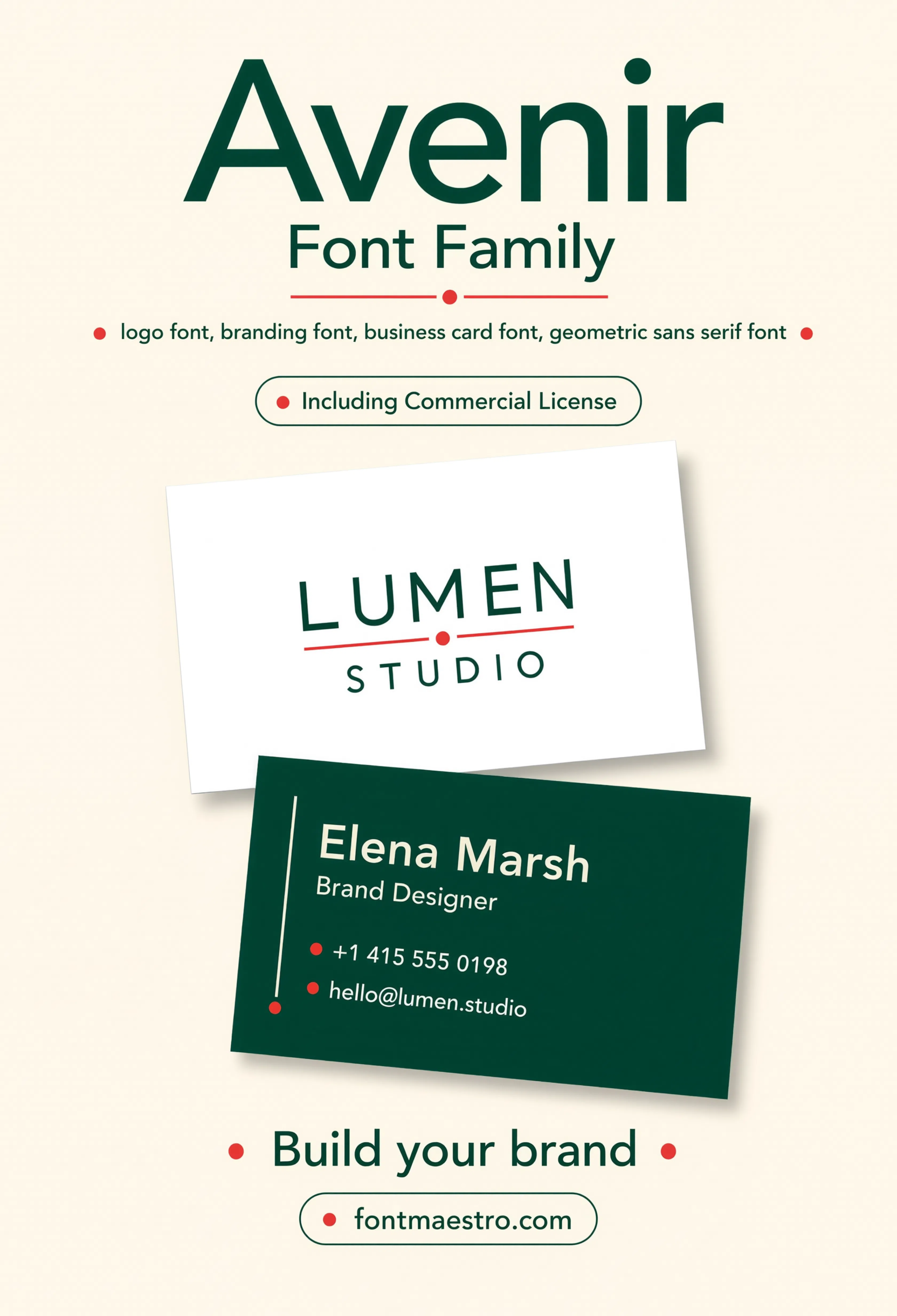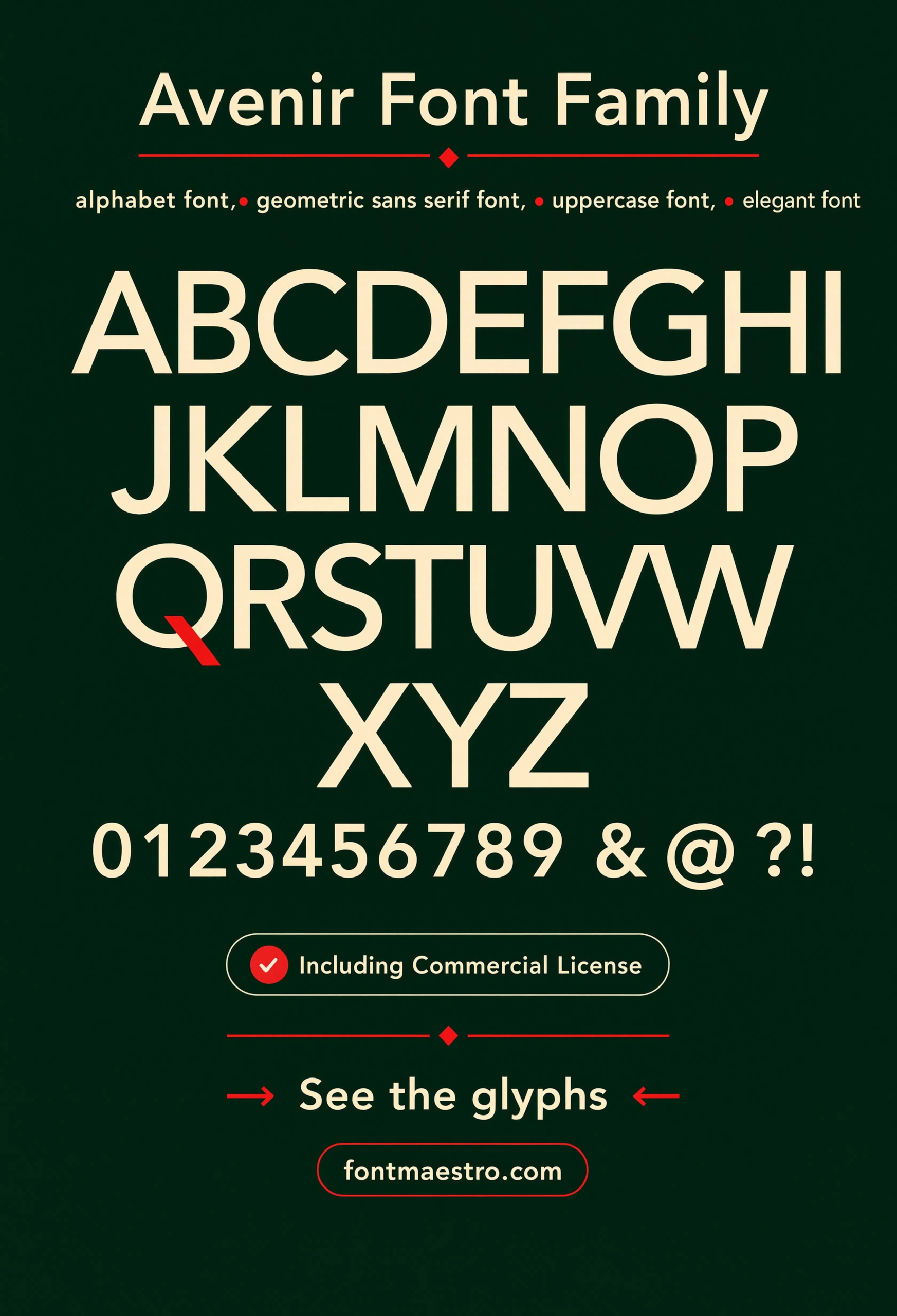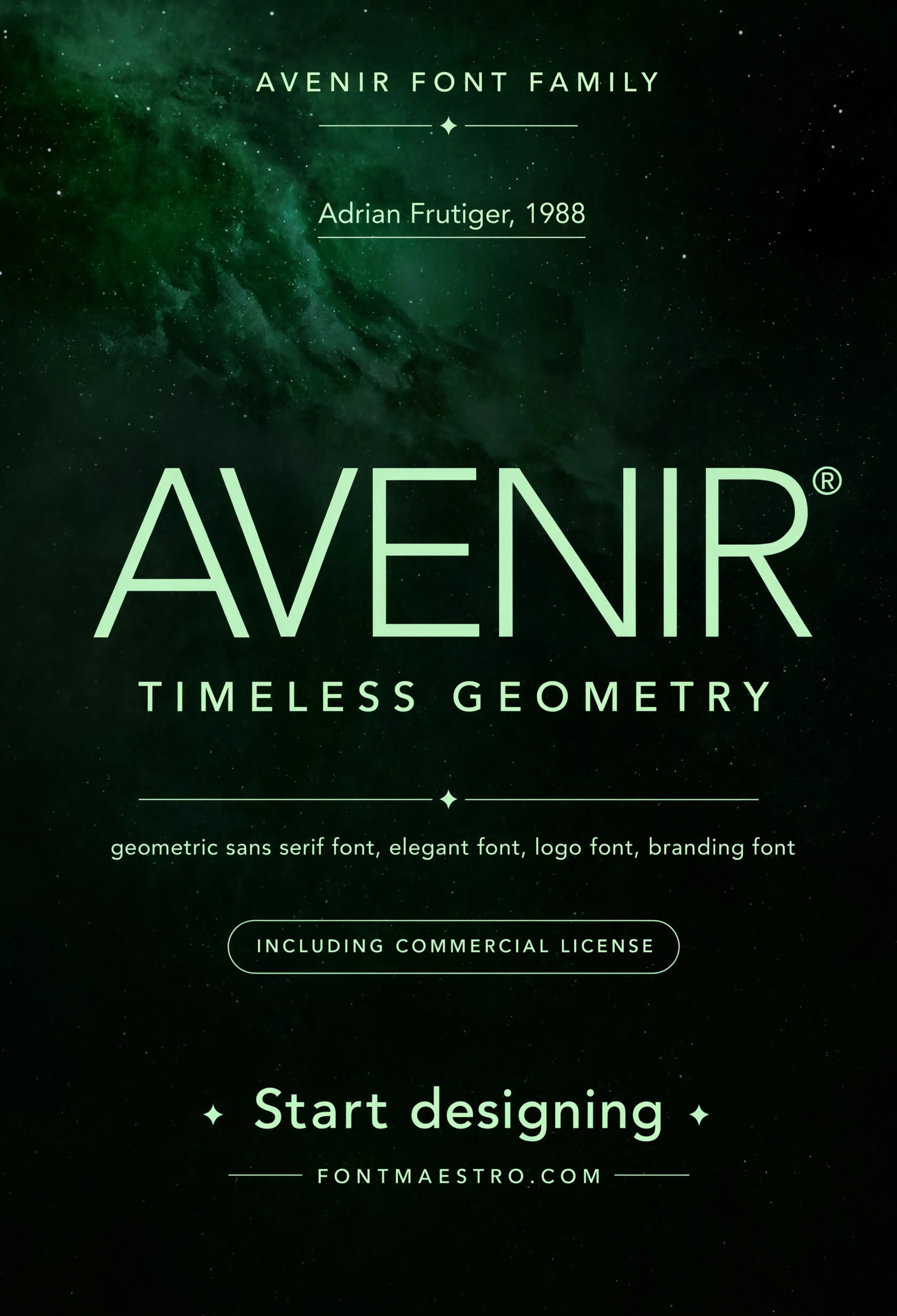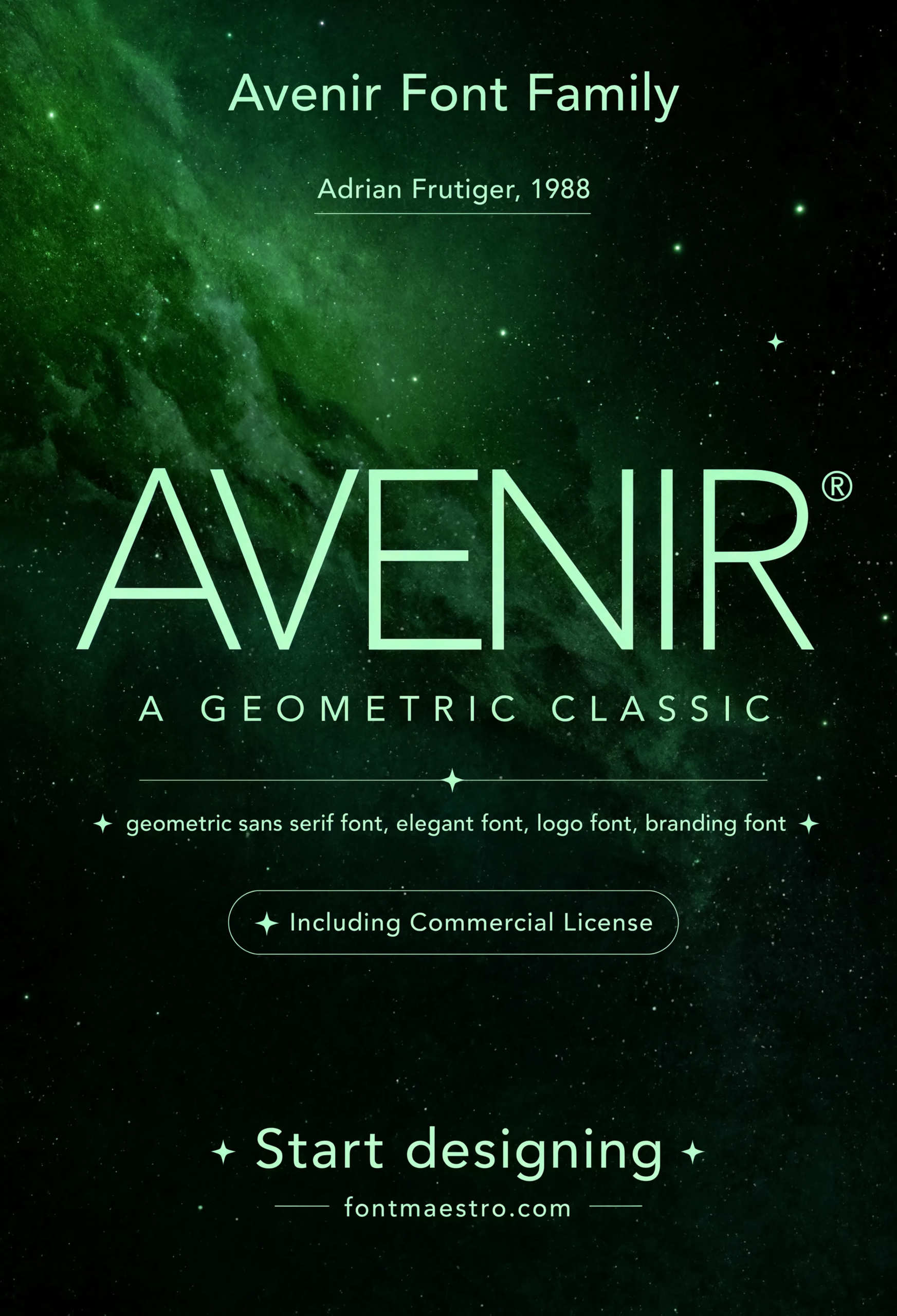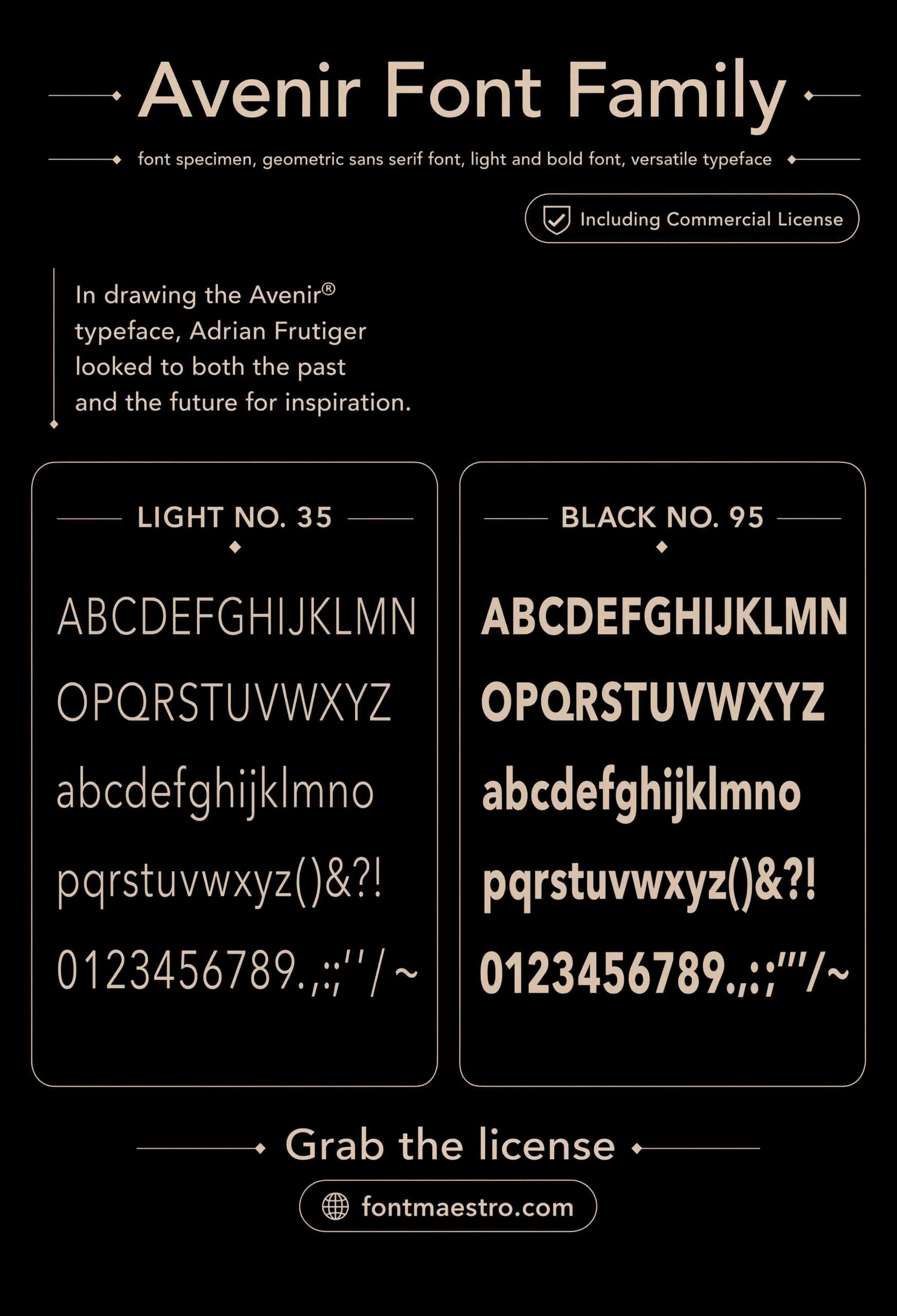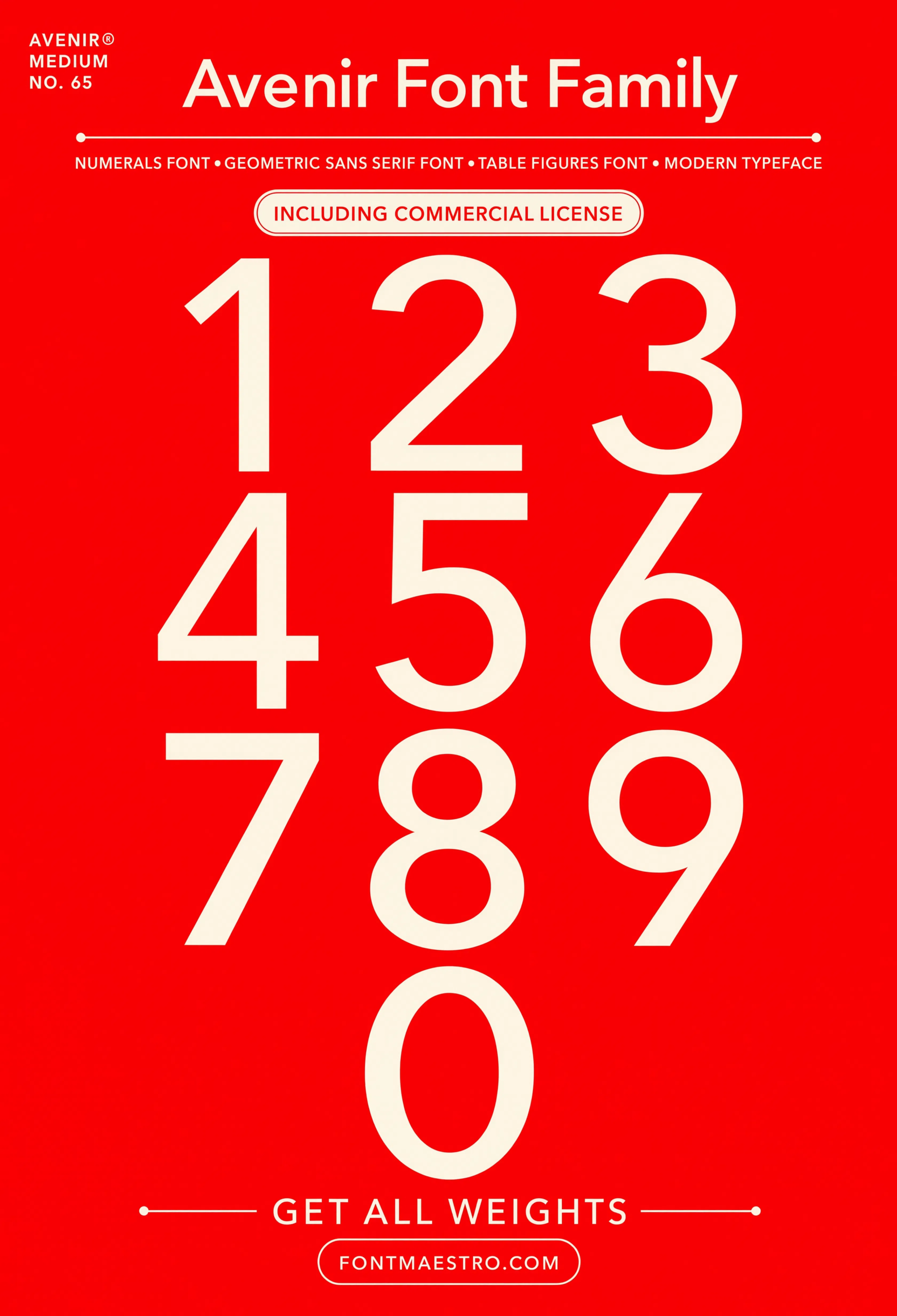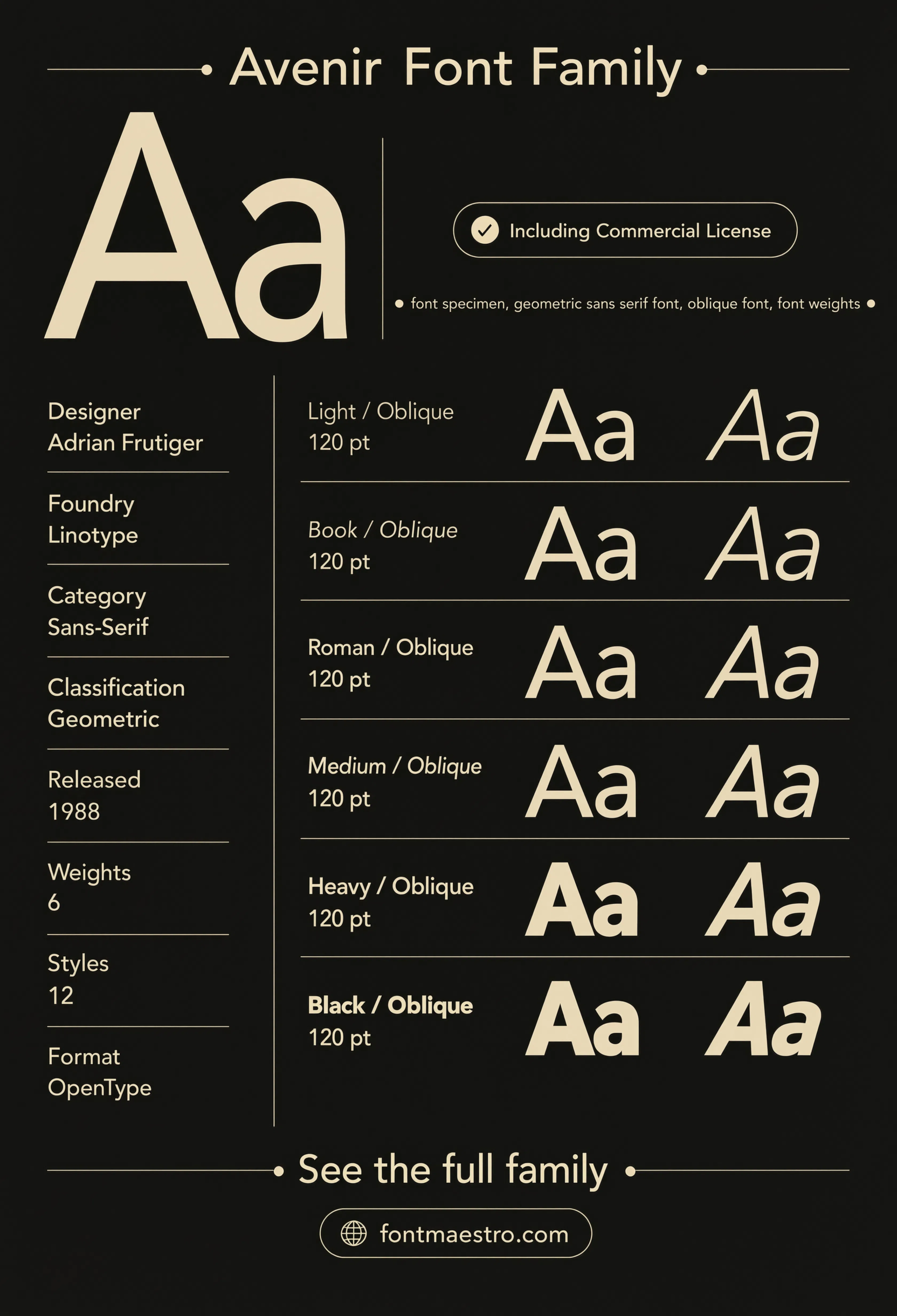
Creative Font Logo Ideas Built From Range, Not Decoration — Avenir Weight System Guide
The most overused idea in branding right now is that “creative” means loud. It doesn’t. Avenir was designed on the principle that a geometric sans-serif could carry personality through proportion alone — no decoration, no gimmicks, just precise curves and consistent stroke weight. Decades after its 1988 release it’s still one of the most licensed families for brands that want to look considered rather than trendy.
That’s the shift worth making before picking a creative font logo: creativity in a wordmark comes from restraint and system thinking, not from how unusual the letterforms look on their own.
Quick answer: A creative font logo doesn’t need decorative or unusual letterforms — it needs a typeface with enough range (weights, italics, numerals, symbols) to build a distinctive brand system around. Avenir is a strong option because its geometric structure stays quietly confident across headline, body, and detail work like numerals and symbols.
What Actually Makes a Creative Font Logo Stand Out?
Range, not novelty. A typeface family with six weights, true oblique styles, full numeral sets, and a dedicated symbol set gives a designer far more creative room than a single “unique-looking” display font ever could. The specimen sheet below shows that range in one view.
How Do You Build a Creative Fonts for Logo System, Not Just a Mark?
• Start with the weight range — a creative font logo often pairs a Black or Heavy weight for the mark with a Light or Book weight for supporting taglines.
• Check oblique styles, not fake italics — true obliques keep the geometric structure intact instead of just slanting the letterforms artificially.
• Test the numerals — any brand that touches pricing, dates, or data needs numerals that match the wordmark’s personality, not a mismatched fallback font.
• Look at the symbol set — icons and symbols designed within the same family keep a brand’s visual language consistent beyond just the logo type.
Light vs. Black Weight Study
A side-by-side of the family’s lightest and heaviest weights — the fastest way to judge how much contrast you can build into a single-family brand system.
Numerals Set
A dedicated numerals sheet — check this before committing if your brand will ever need to typeset data, dates, or measurements in the same voice as the logo.
Branding Mockup
The wordmark applied to a real branding mockup — a useful gut-check for how a creative font logo actually reads once it’s off the specimen sheet and onto a physical brand touchpoint.
Specimen Sheet
A full specimen sheet lays out every weight and style side by side, making it easy to compare how Avenir behaves across a creative font logo system.
Cosmic Hero Display
A large-scale hero treatment pushes the typeface to display sizes, showing how the letterforms hold up when a creative fonts for logo project needs maximum visual impact.
Cosmic Hero — Alternate Crop
A second crop of the cosmic hero display gives another angle on how Avenir scales at large display sizes.
• Check weights, oblique styles, numerals, and symbols before committing — not just the wordmark itself.
• Test any creative font logo at both small UI scale and large display scale before finalizing a brand system.